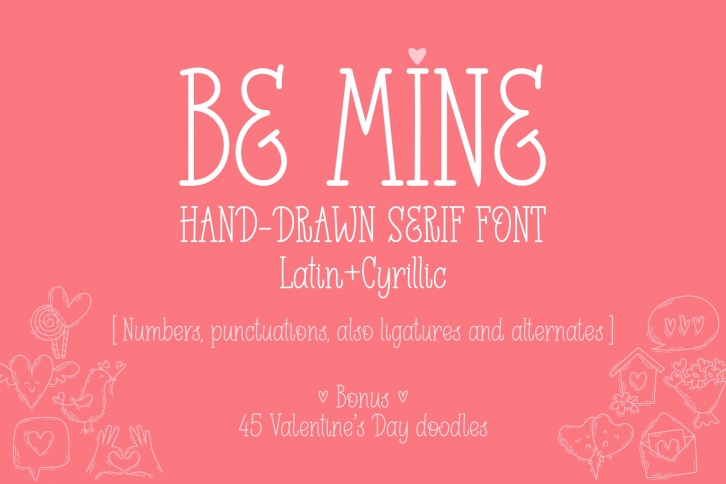
This hand-drawn serif typeface with doodle character a bit, and is suitable for casual use - comfortable, light, with accurate and clean lines.
BeMine Font is perfect for storyboards, designing diaries and planners, lists, schedules, including digital. Also for children's books, comics, menus, illustration captions.
Contains Latin and Cyrillic characters, punctuation, numbers, also some alternatives and ligatures.